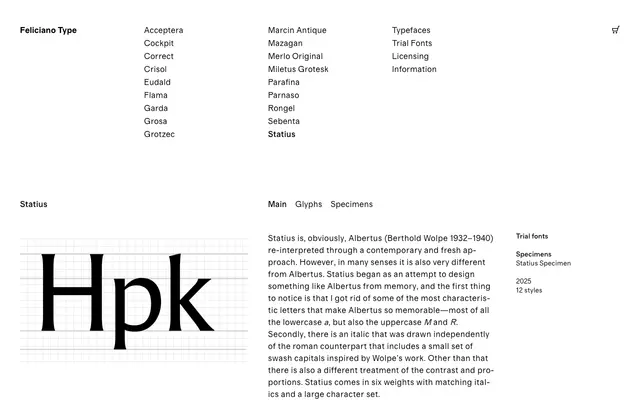
Statius
Feliciano Type · 2025
A reinterpretation of Berthold Wolpe's Albertus begun from memory, departing from its most iconic letterforms to arrive at something both familiar and independent.
Designed at Feliciano Type and released in 2025, Statius takes Wolpe's Albertus as its starting point but deliberately abandons some of its most recognisable features, including the lowercase a and the uppercase M and R. The italic was drawn independently of the roman and includes a small set of swash capitals inspired by Wolpe's own work. Six weights with matching italics and a large character set make up the 12-style family.
Statius is a reinterpretation of Berthold Wolpe's Albertus, a glyphic or lapidary serif with incised, chisel-cut letterforms rather than conventional calligraphic stress. The flared terminals and carved quality place it firmly in the glyphic category.